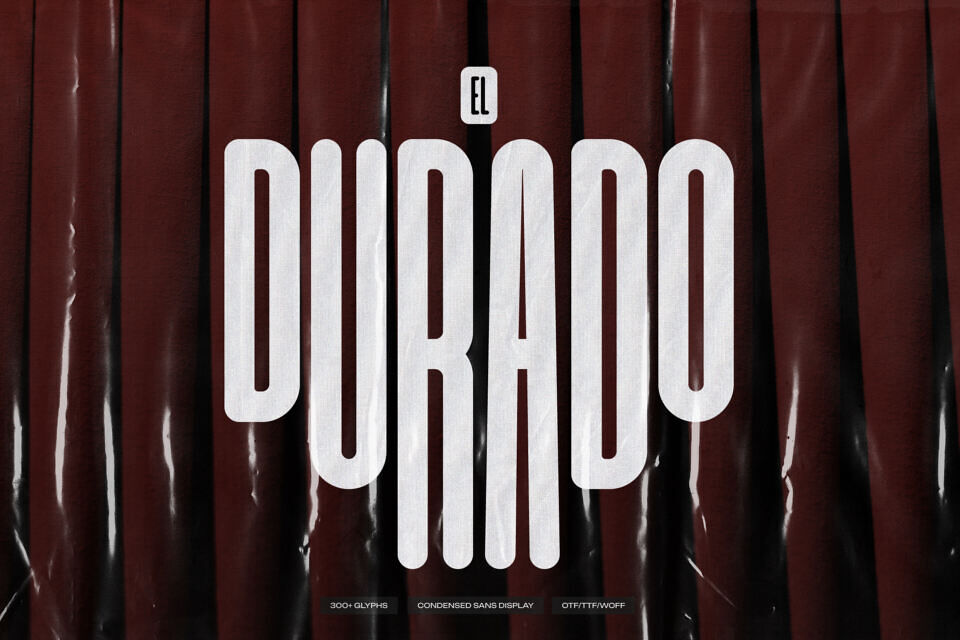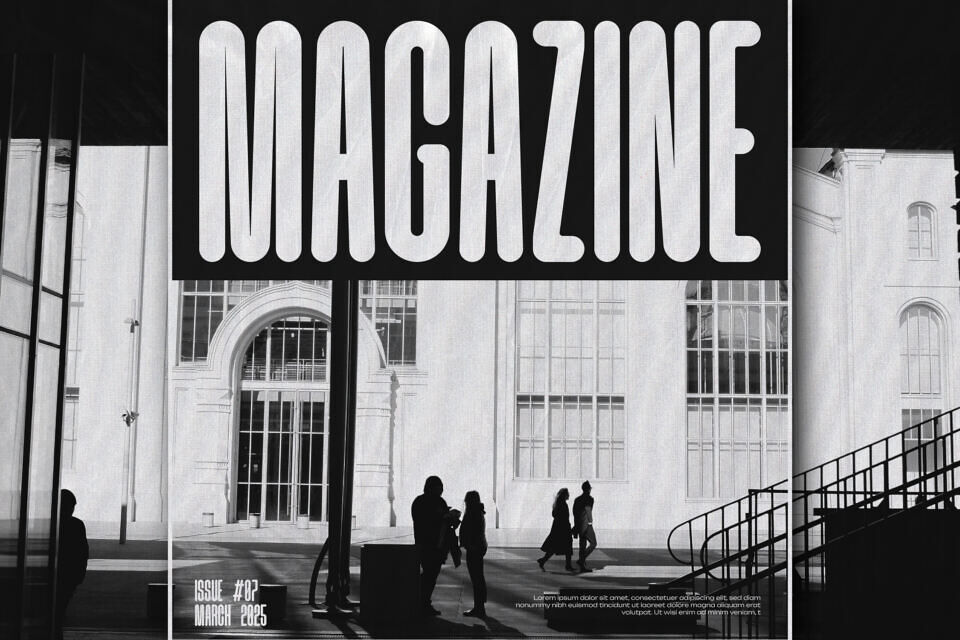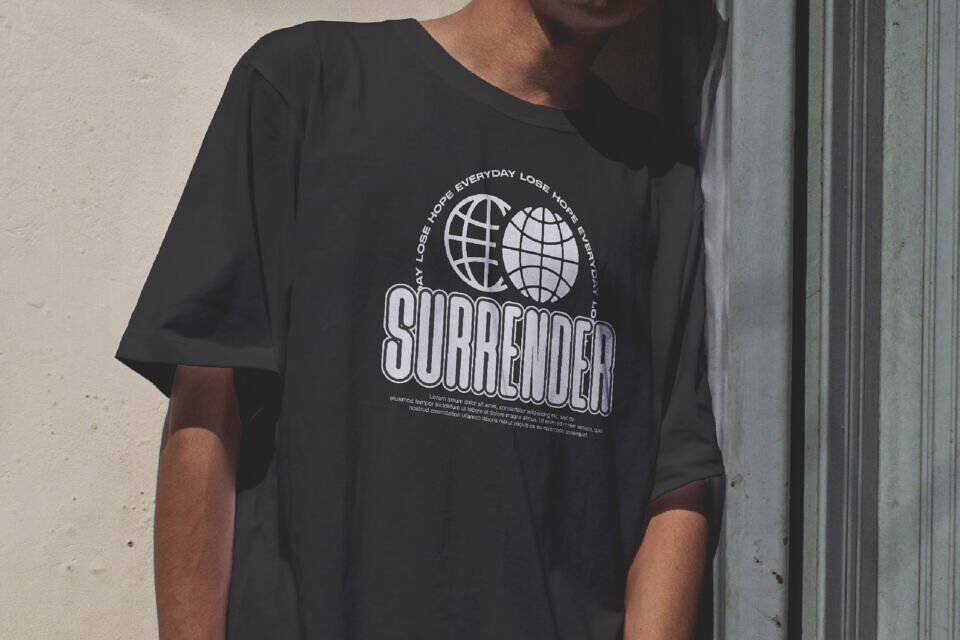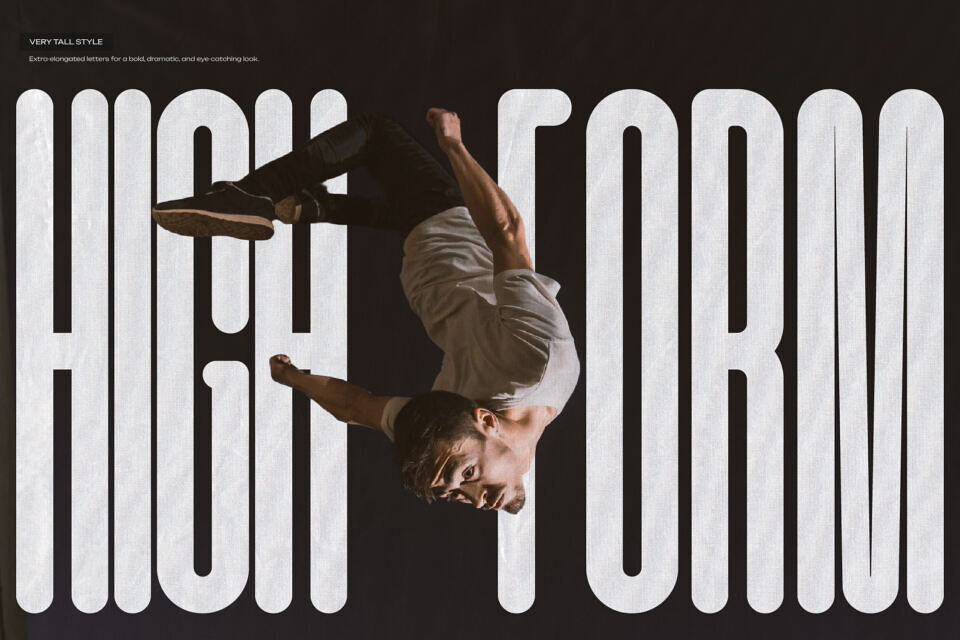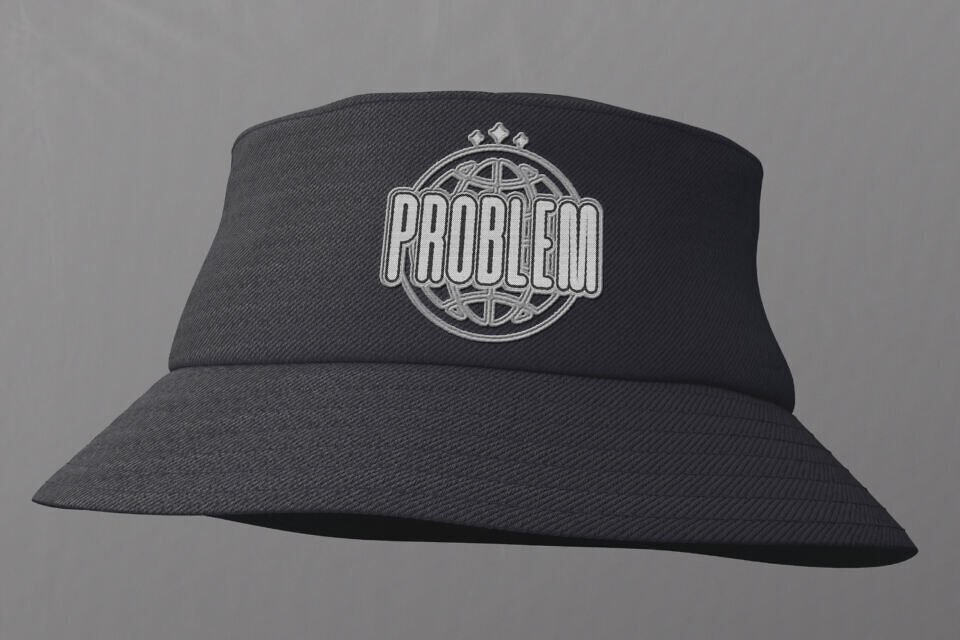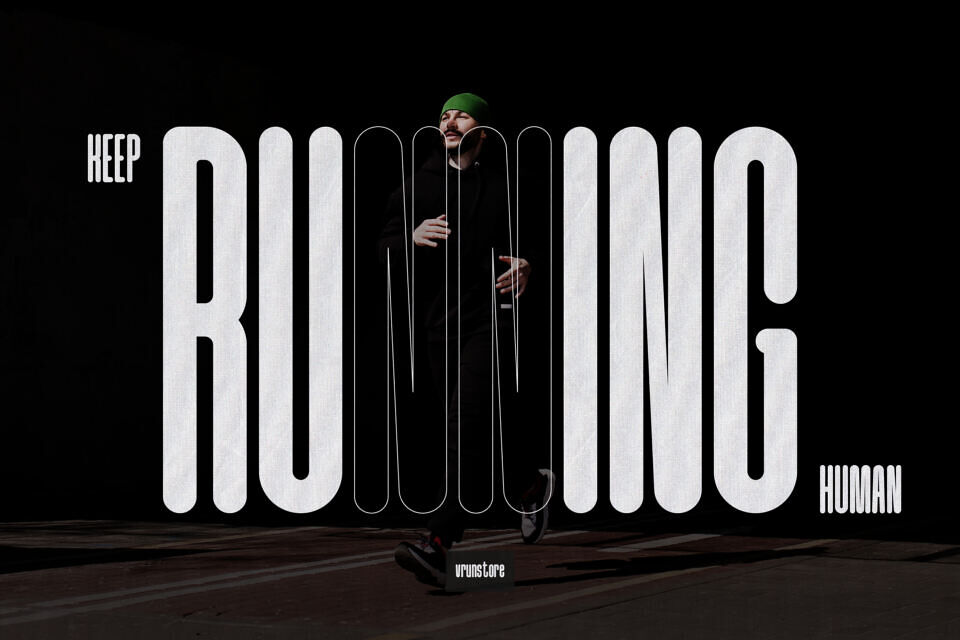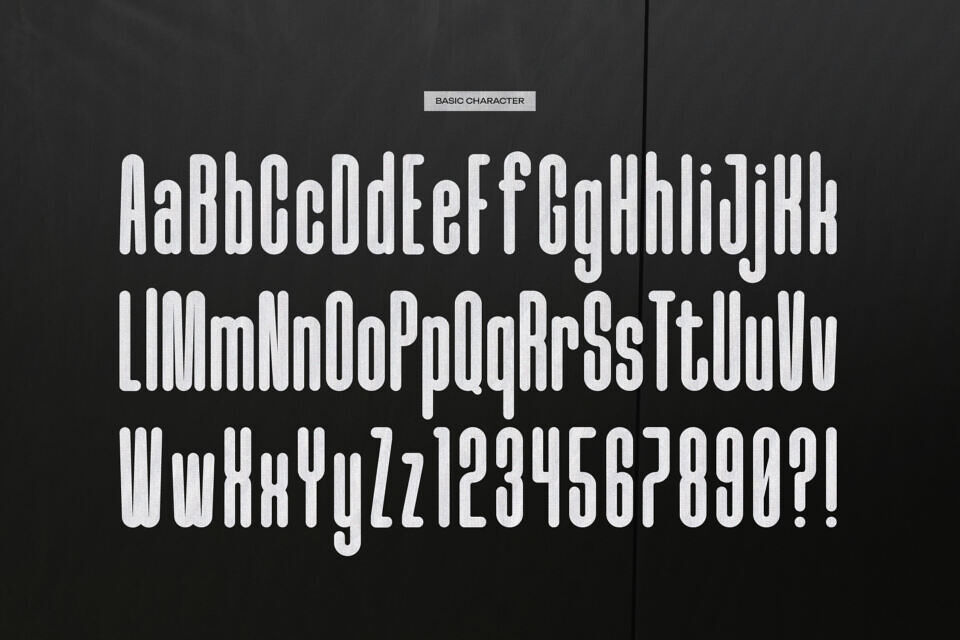
El Durado Font
El Durado is a Condensed Sans Display font from Gracetypestudio, suitable for any projects such as: logos, branding projects, homeware designs, product packaging, mugs, quotes, posters, shopping bags, t-shirts, book covers, name card, invitation cards, greeting cards, label, photography, watermark, special events, and all your other lovely projects that need a New Condensed Sans Display taste.